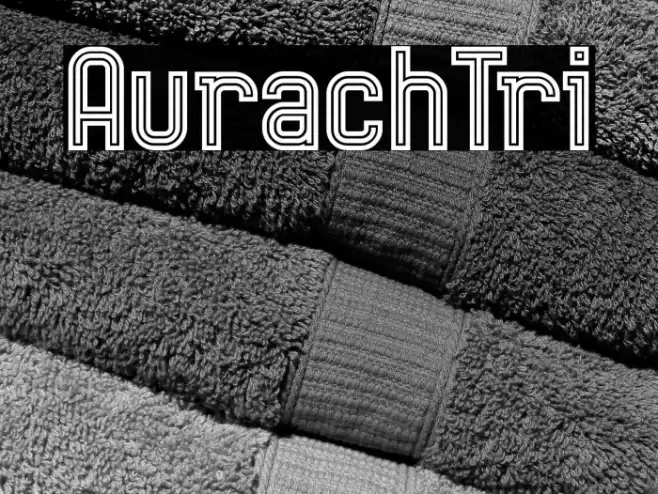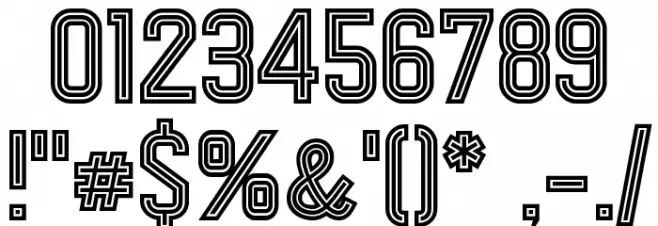
AurachTri Font
AurachTri Description
This font features a bold, geometric design with a double-line outline that gives it a striking and modern appearance. The uppercase and lowercase letters maintain a consistent height, creating a uniform look. The numerals are equally bold and clear, making them highly legible. Special characters are designed with the same double-line style, ensuring consistency across all glyphs. The font's structure is clean and precise, with sharp angles and straight lines that contribute to its contemporary feel.
A bold, geometric font with a double-line outline and modern style from Uncategorized fonts.